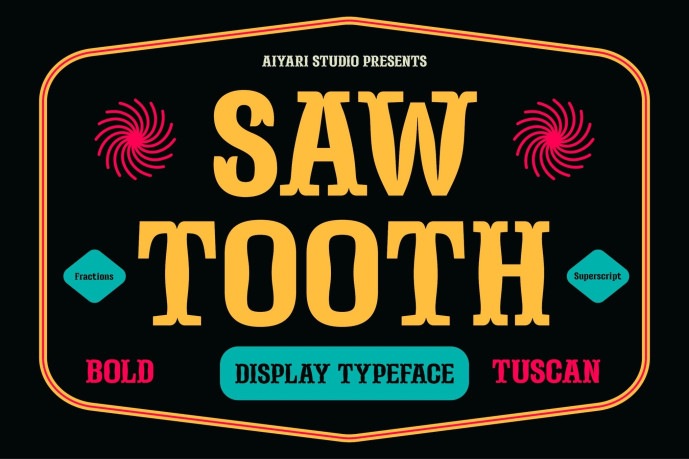
Sawtooth Font
Designer: Aiyari
Sawtooth Font is a bold, Tuscan-style display typeface with sharp spurs and vintage athletic charm. Its semi-condensed form and dramatic serifs echo old-school sports banners, rodeo posters, and American college aesthetics. Seamlessly blending retro boldness with typographic flair, Sawtooth thrives in team logos, event flyers, and signage that needs to make an impact.